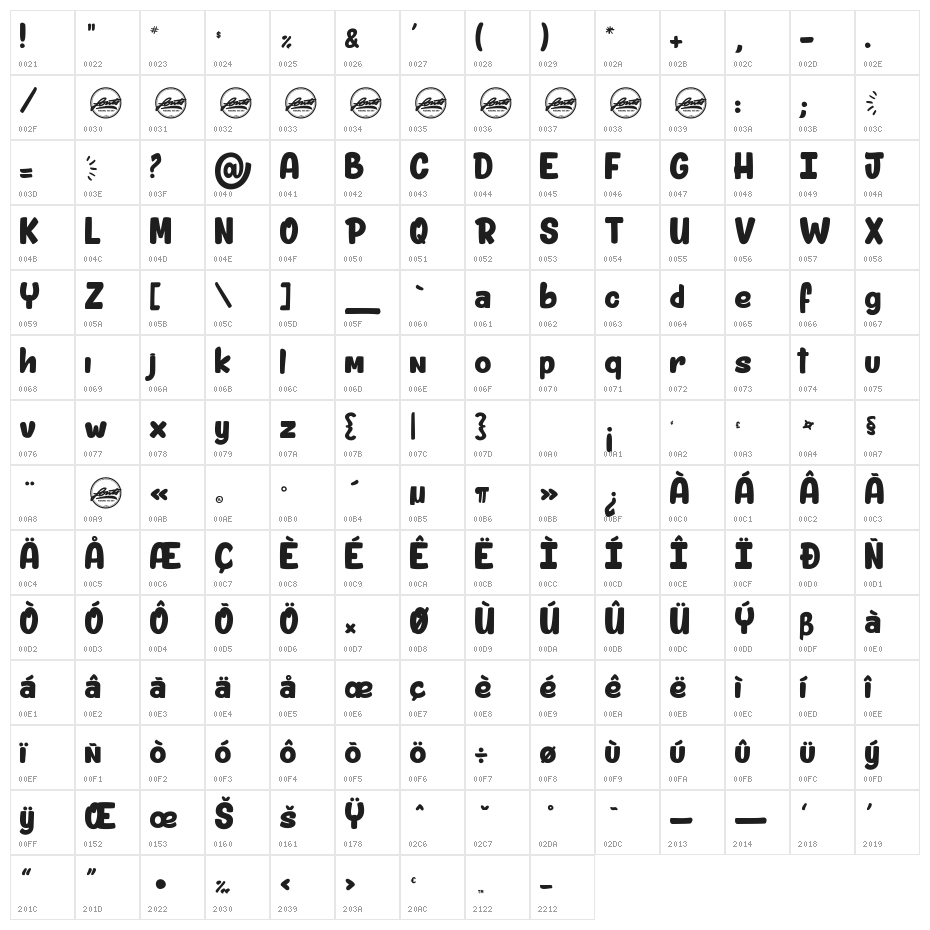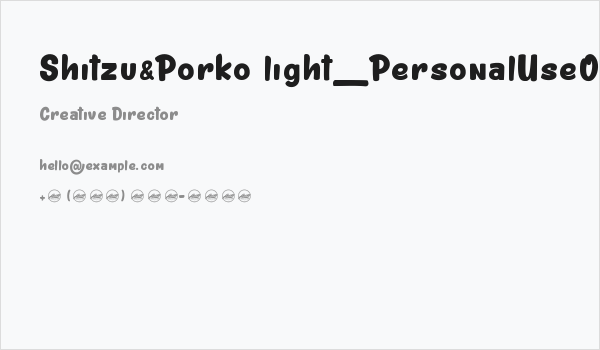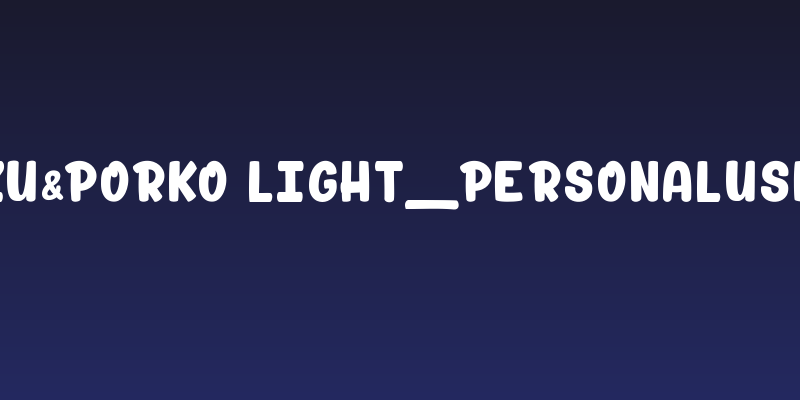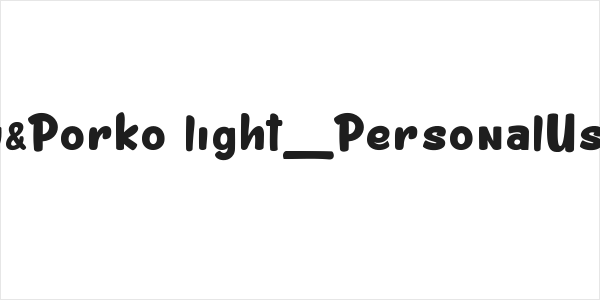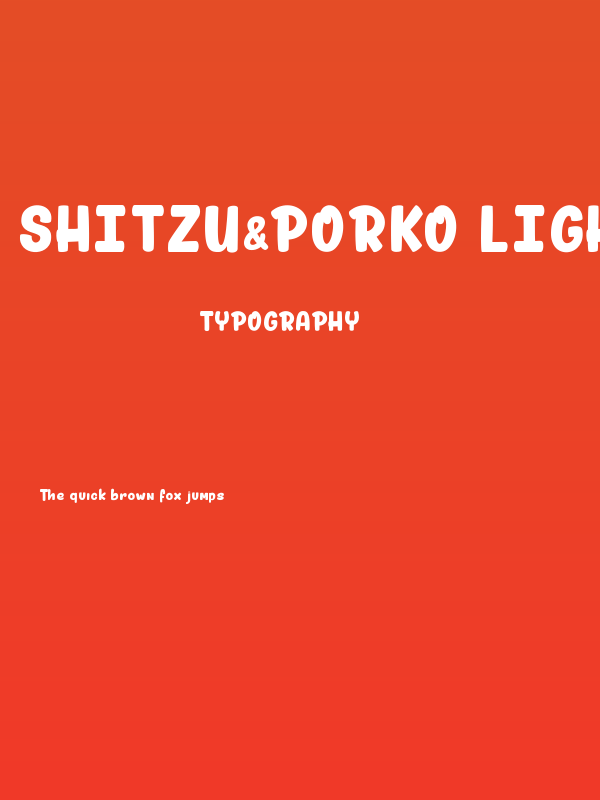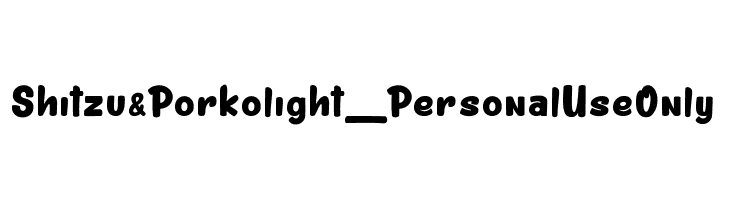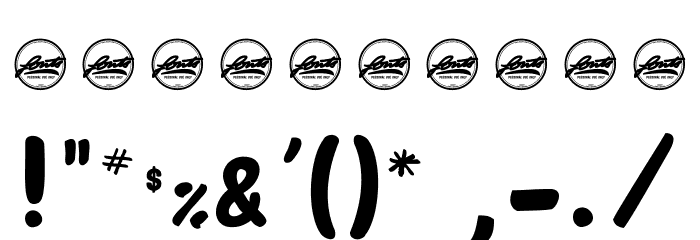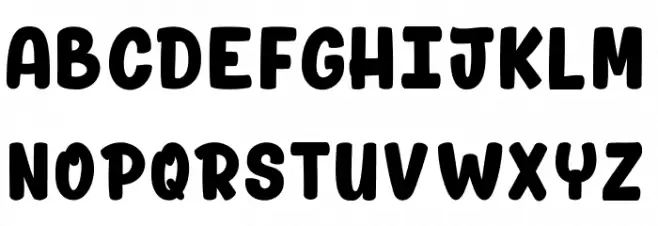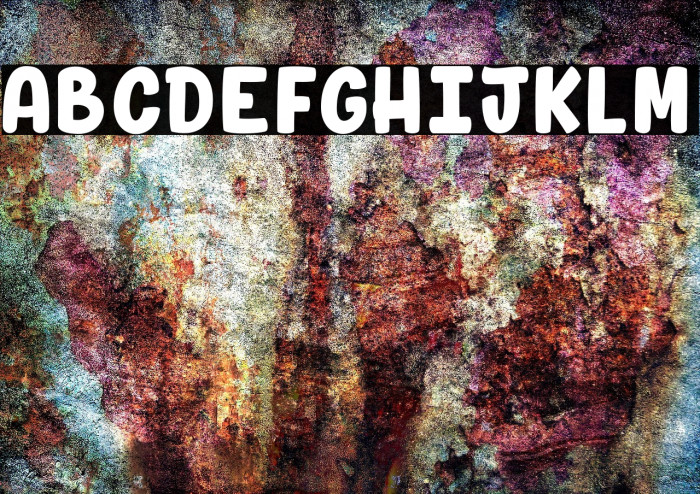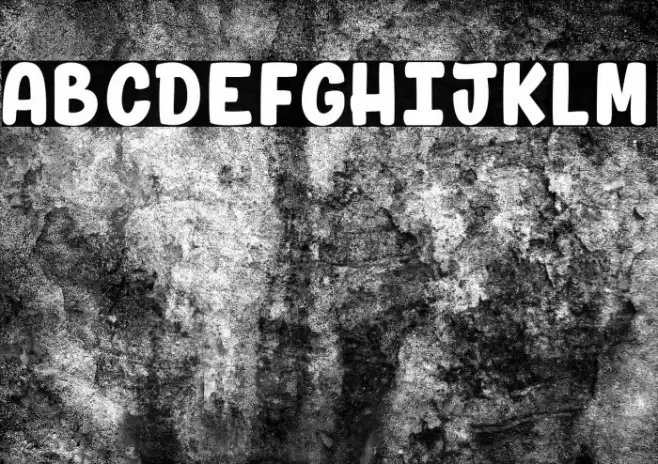
Shitzu&Porko light_PersonalUseOnly Font
| Gesamtstil | Playful, Fun |
| Vorgeschlagene Projekte | Ideal for children's books, playful branding, party invitations, and casual social media graphics. |